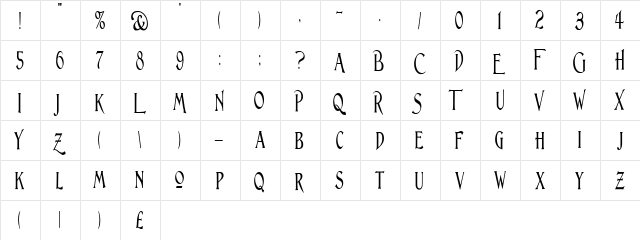
Lightfoot Narrow Extra-condensed Regular Font Preview
| Style | Extra-condensed Regular |
| Designer | PJL |
Design Context for Lightfoot Narrow Typeface
Lightfoot Narrow takes a measured approach to typography — its balanced proportions and neutral character make it a reliable workhorse for both digital and print work. The delicate stroke weight brings airiness and refinement to layouts. Its narrow stance lets it pack a punch even in space-constrained designs.